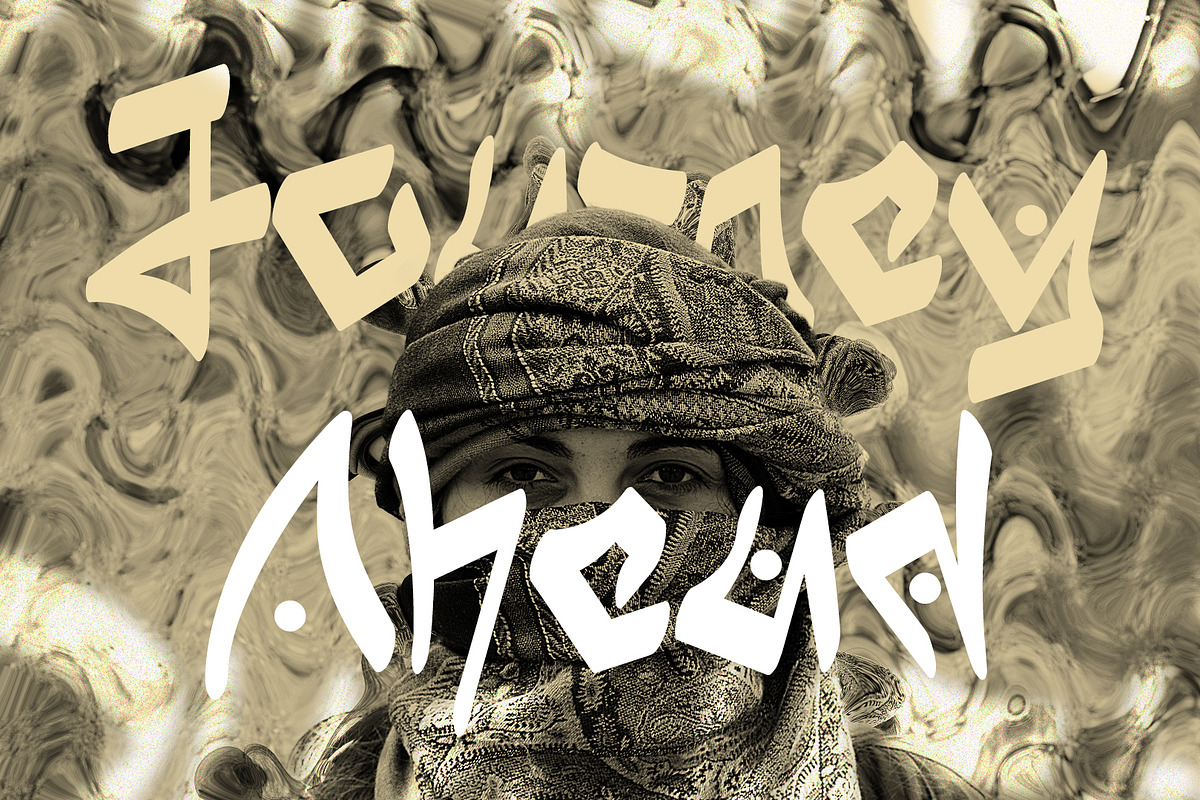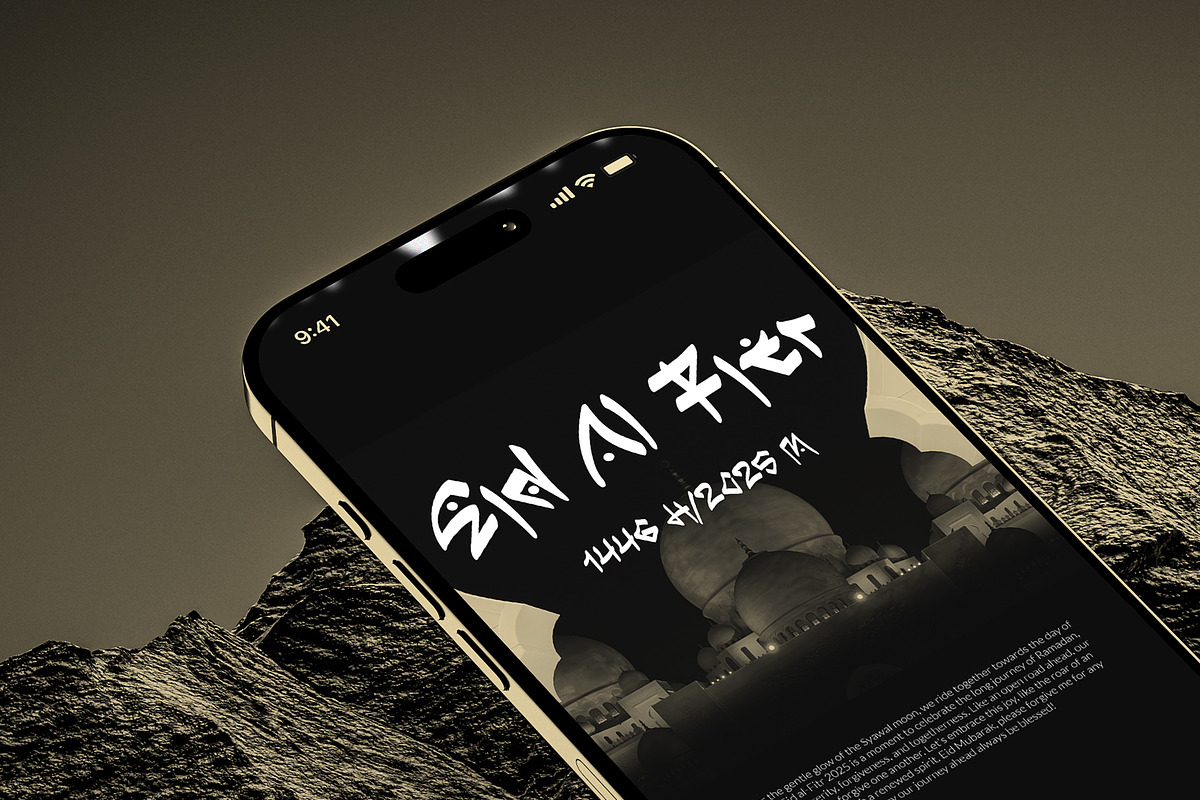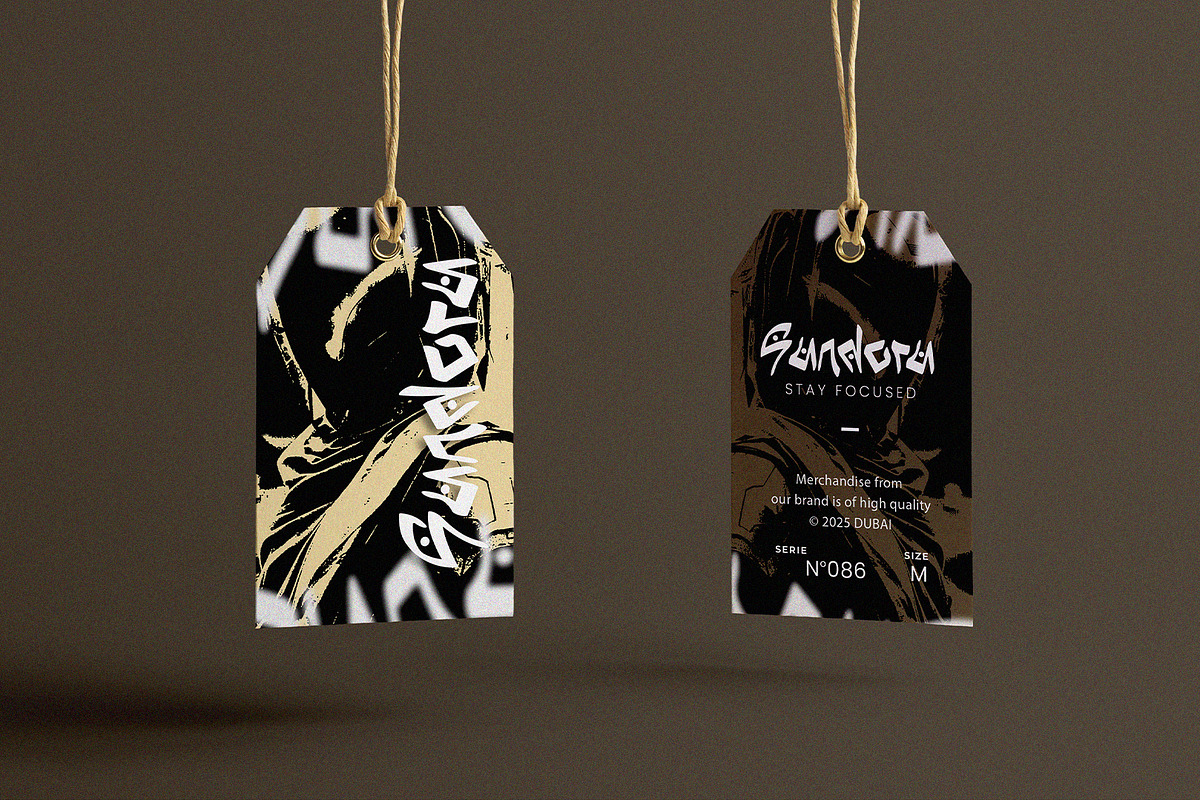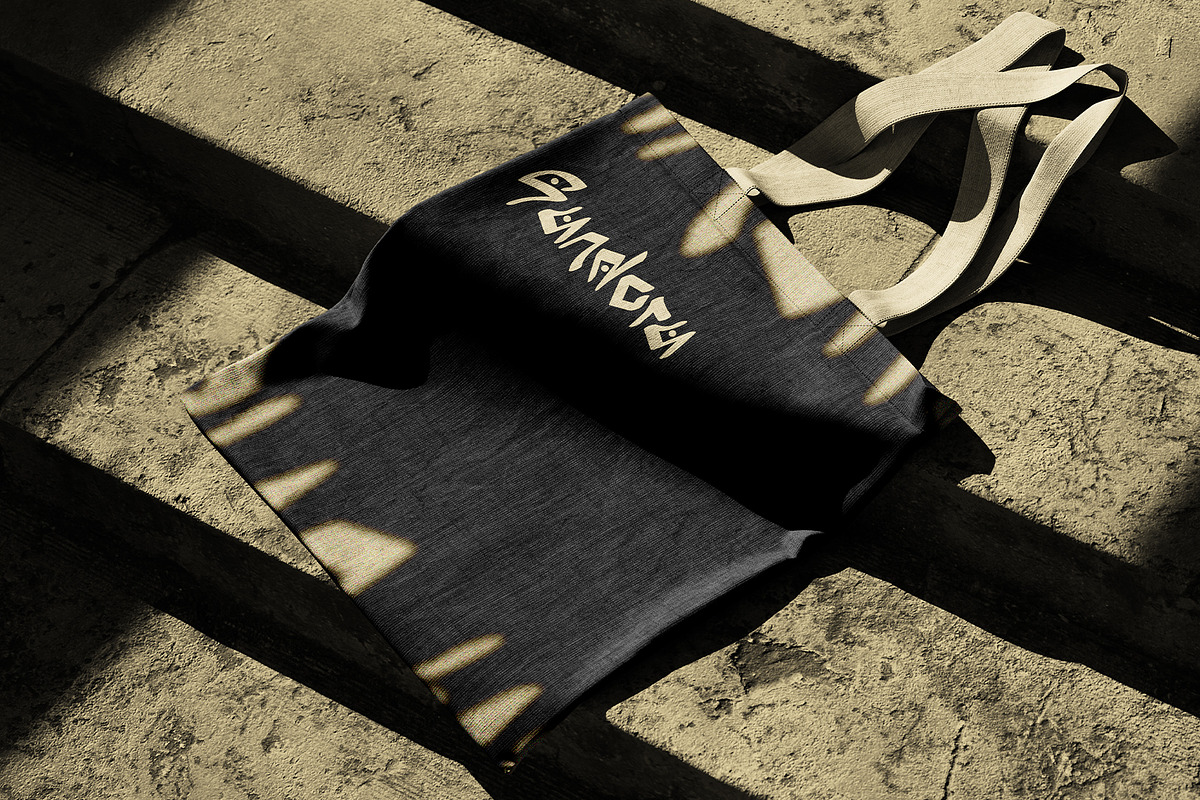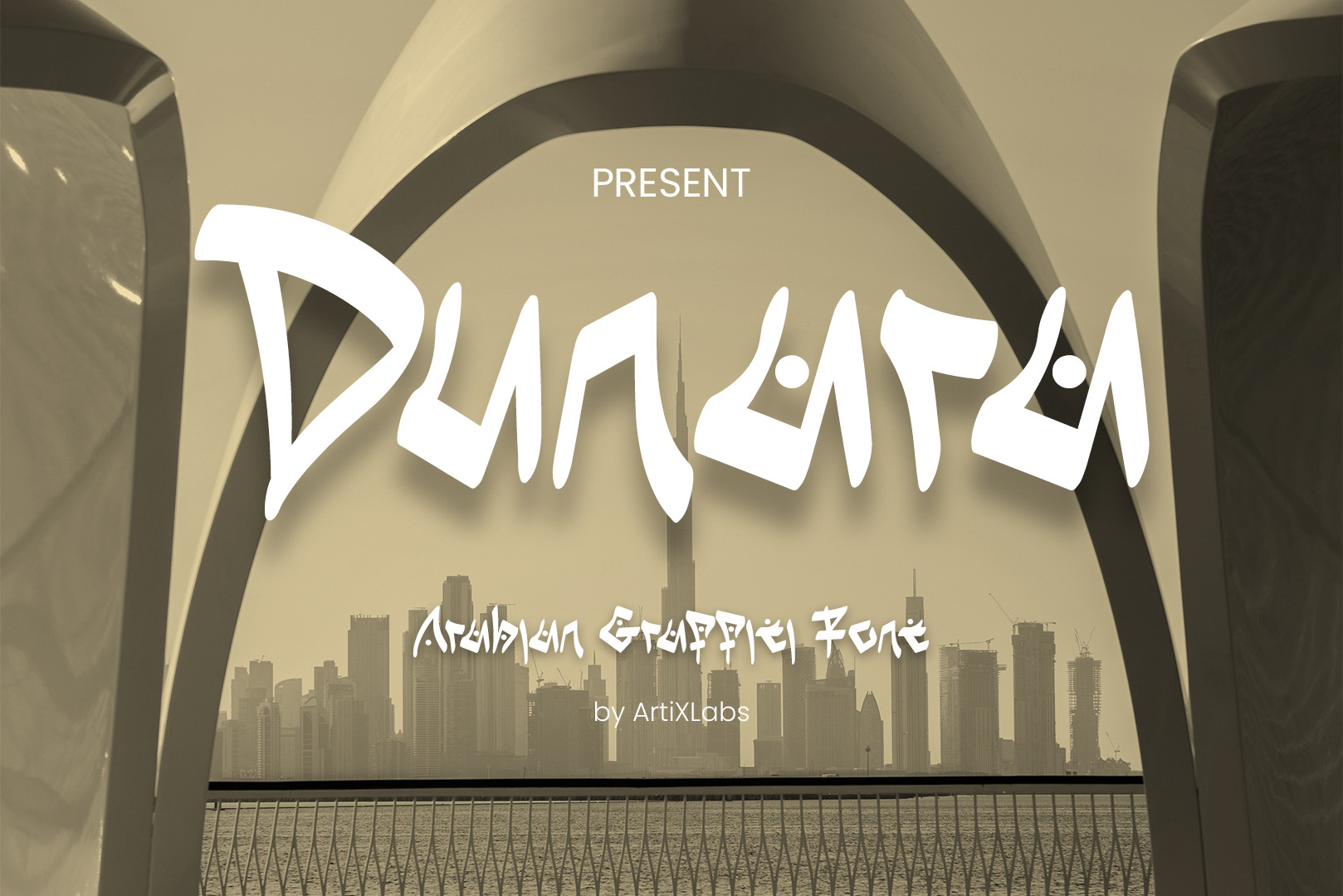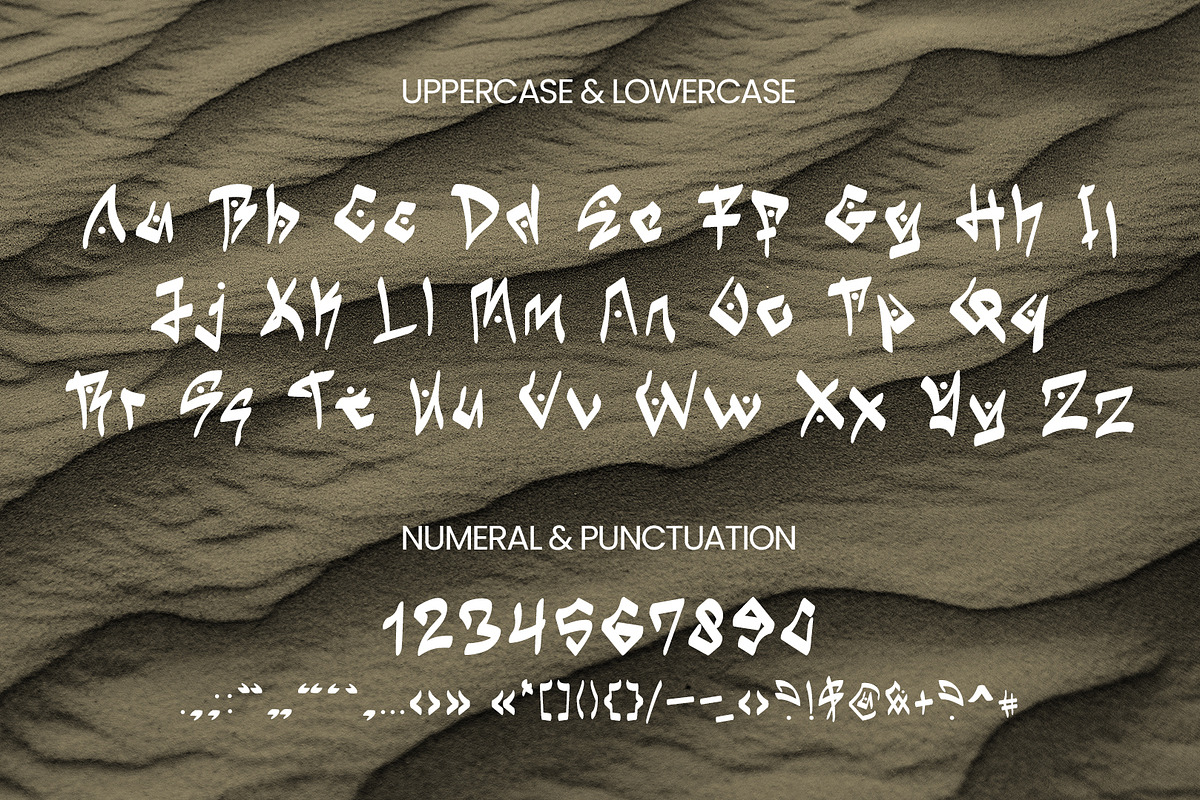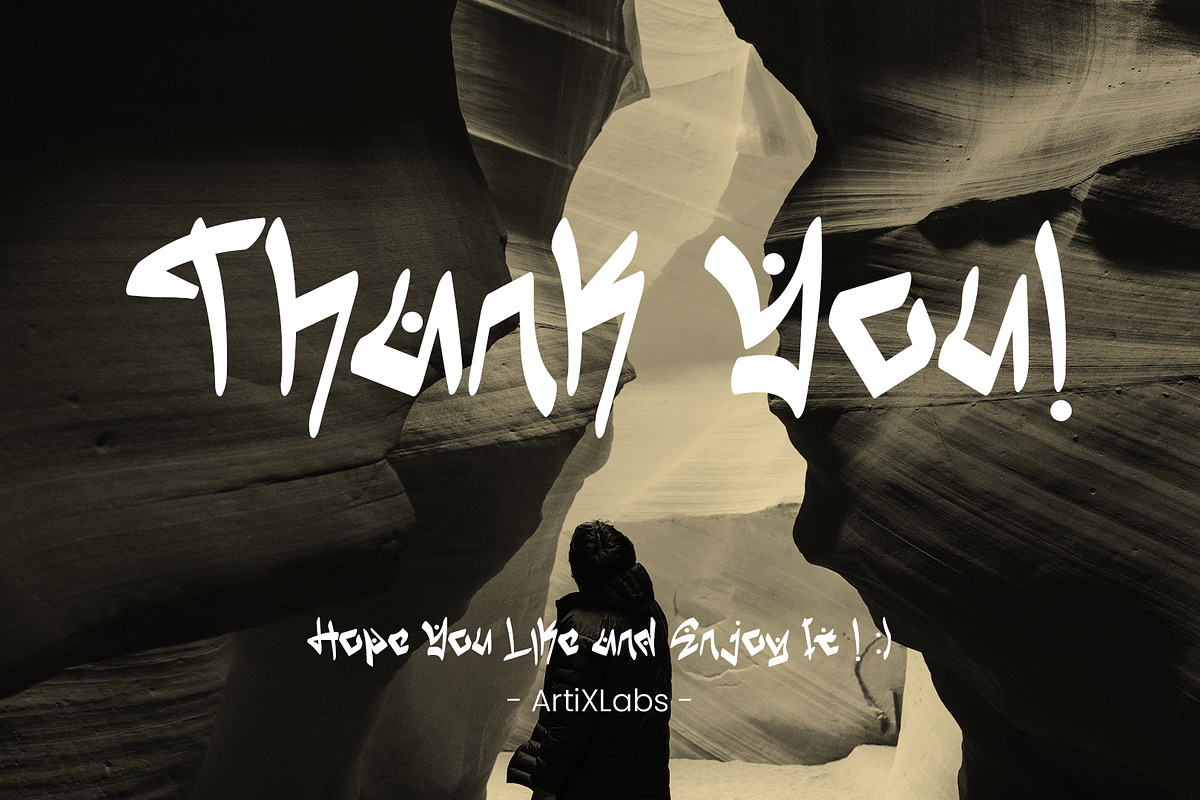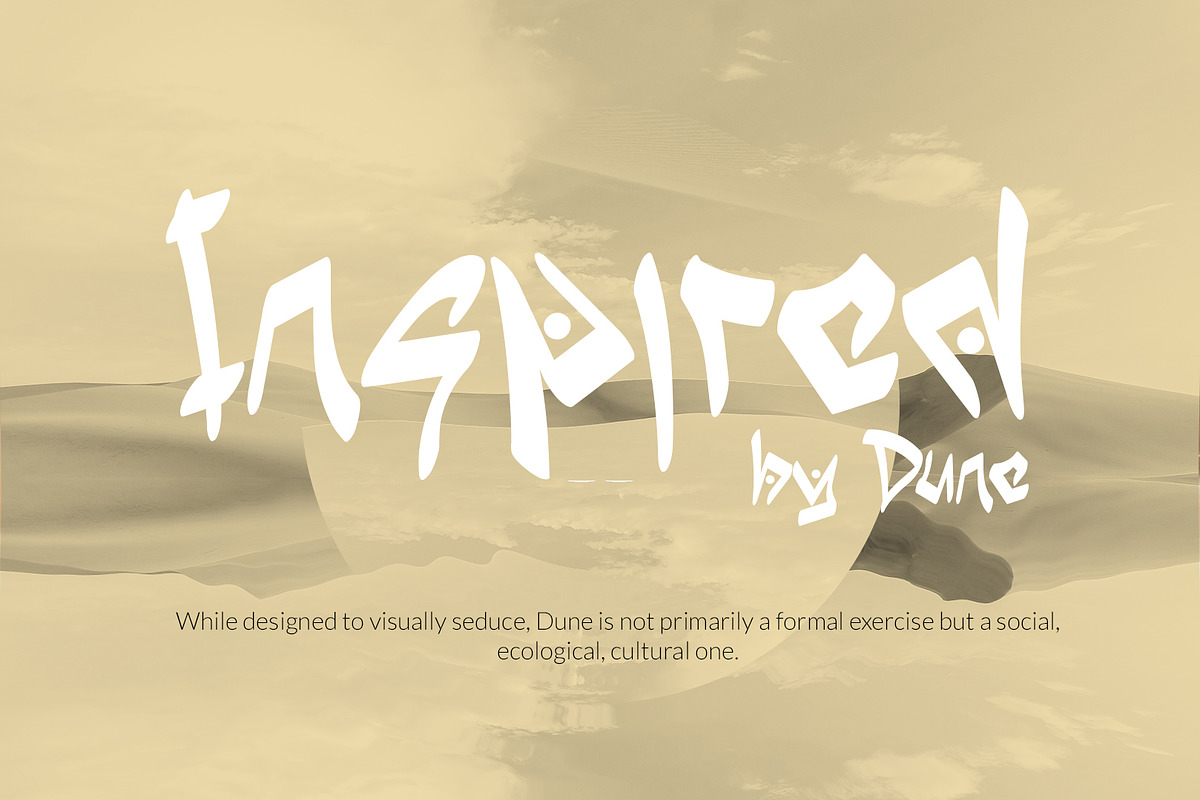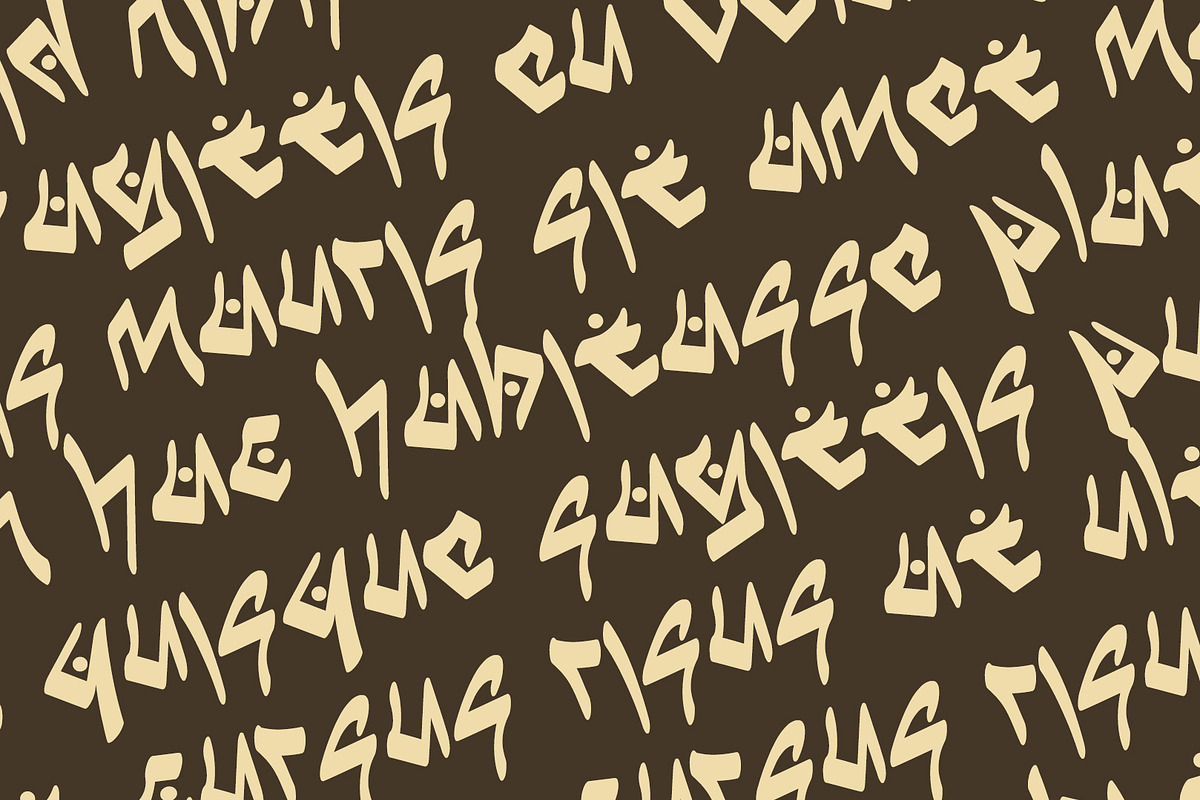
Dunara Arabian Graffiti Font
Introducing Dunara - Arabian Graffiti Font Arabic Graffiti Font for Bold & Cultural Designs
Dunara is a unique fusion of Arabic calligraphy and wild graffiti, perfect for creating bold, culturally rich designs. Ideal for posters, urban branding, or projects that celebrate Middle Eastern heritage, this font combines the elegance of Arabic script with the raw energy of street art. Use it for event flyers, cultural festivals, or edgy fashion branding to make a powerful statement. This Font can be used for any variety of purposes, such as: Music Album, Poster, Ceremony, Packaging Products, Logo Type, Branding, T-Shirt Design, Website/Blog, Headline Magazine, Brochures and also can be used for other purpose.